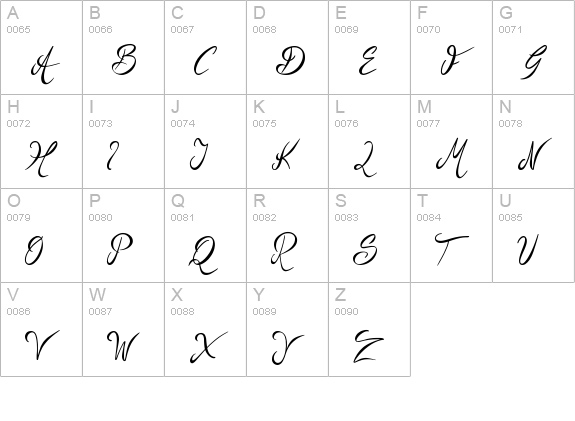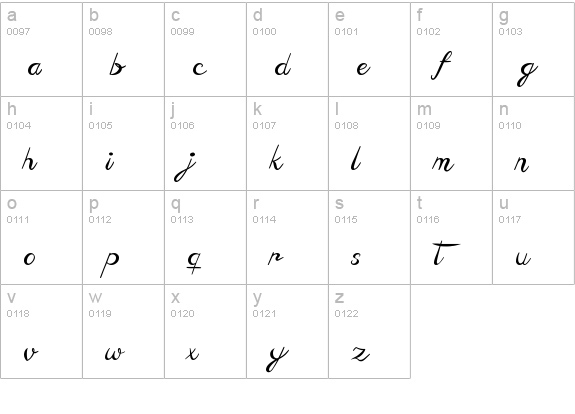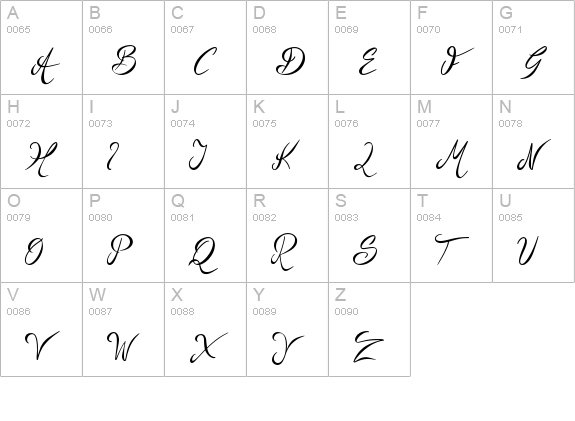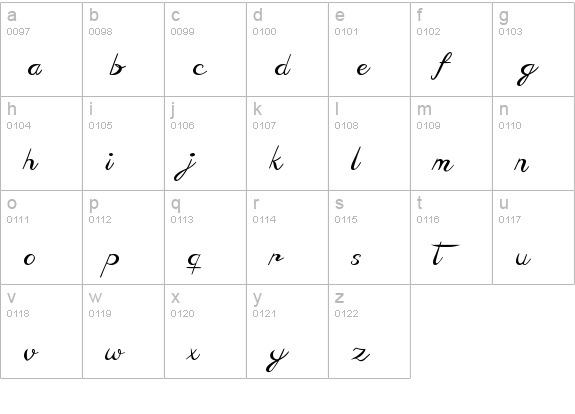
Birds of Feather Font Details
Birds of Feather font is a stunning typeface that beautifully captures the elegance and grace of avian creatures. Its intricate details and flowing curves make it the perfect choice for any design project that requires a touch of sophistication and refinement. This font has been meticulously designed to showcase the intricate patterns found on the feathers of birds. Each letter is crafted with precision, creating a harmonious balance between delicate lines and bold strokes. The result is a font that is visually captivating and effortlessly stylish. What sets Birds of Feather font apart is its versatility. Whether you are designing a logo, creating a poster, or crafting a wedding invitation, this font will add a touch of elegance to your project. Its timeless appeal makes it suitable for a wide range of themes and aesthetics. One of the best things about Birds of Feather font is that it is available for free download at FontsMarket.com. This means that you can use this font to enhance your designs without having to worry about any additional costs. Simply head over to FontsMarket.com and download Birds of Feather font to start incorporating its beauty into your projects. So why wait? Add a touch of grace and sophistication to your designs with Birds of Feather font. Whether you are a professional designer or a hobbyist, this font will elevate your work to new heights. Download it for free at FontsMarket.com and let your creativity take flight.